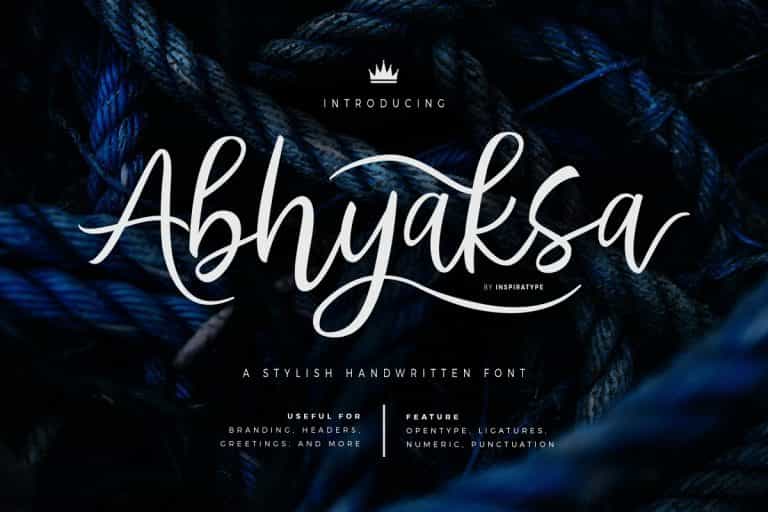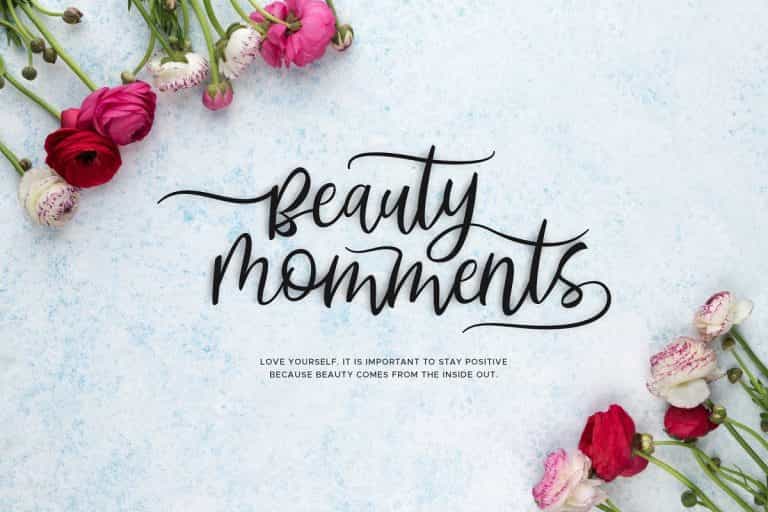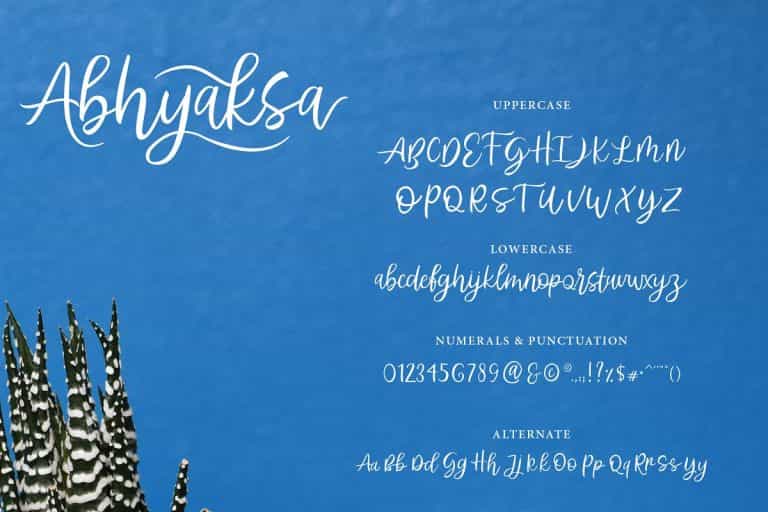
Discover Abhyaksa Handwritten Font, part of the Calligraphy Handwritten collection—a versatile and unique font perfect for adding a personal touch to your projects. Download it for free and enjoy crafting designs with style, from invitations to social media posts. This font is available exclusively for personal use, giving you the freedom to create without limits. Unlock your creativity with Abhyaksa Handwritten Font today!
Abhyaksa Font – A stylish handwritten font. Abhyaksa is a font display that has been manually designed, and it is based on the classic posters. Has all uppercase, lowercase, numerals, punctuations and so many variations on each character that include OpenType alternates, common ligatures and also additional swash to let you customize your designs. Ideal to be used for Logo, Letterhead, Poster, Apparel Design, Label and so on.